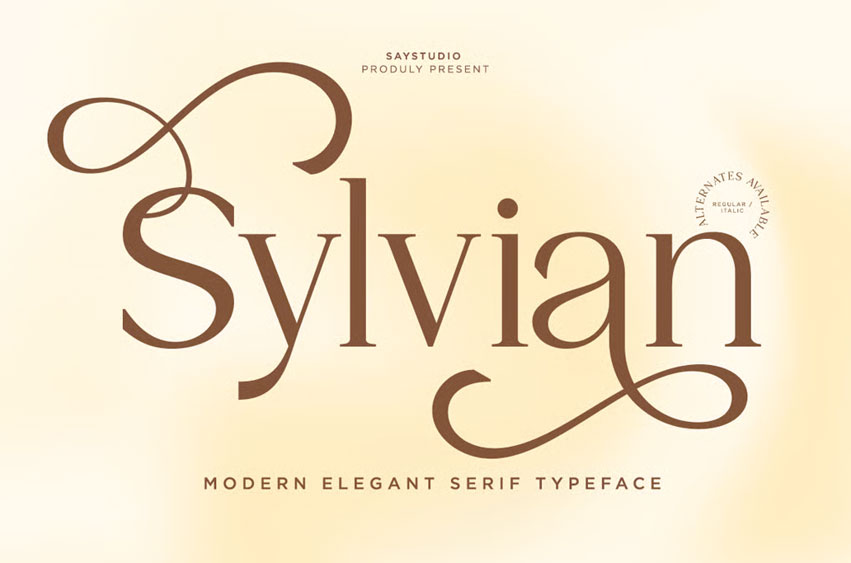
Sylvian Font was created for those who appreciate sophistication and elegance in every aspect. Designed with a luxurious touch, its smooth curves and polished forms offer a timeless charm that enhances any design.
The font’s refined letter shapes evoke a sense of exclusivity, making it ideal for premium branding, fashion, and upscale packaging.
• Uppercase and Lowercase
• Stylish Alternates ( Uppercase & Lowercase )